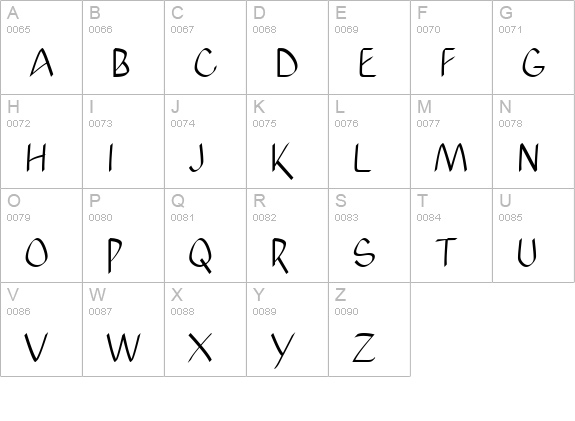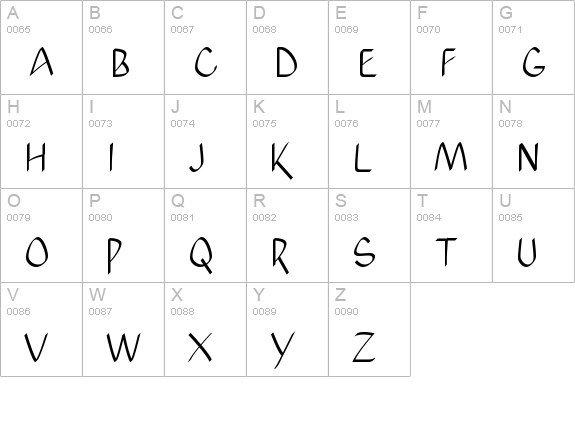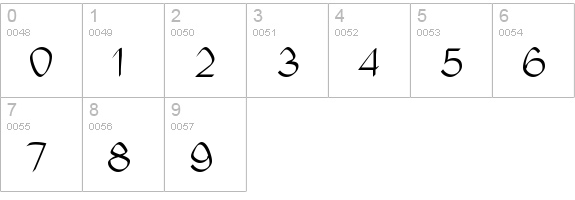
Xahosch Font Details
Xahosch font embodies elegance and sophistication with its sleek and modern design. Crafted with precision and attention to detail, this font is perfect for adding a touch of class to any project. Its clean lines and stylish curves make it versatile for a wide range of design applications, from branding to editorial design. What sets Xahosch font apart is not only its aesthetic appeal but also its accessibility. This exquisite font is available for free download at FontsMarket.com, allowing designers and enthusiasts alike to easily access and use it in their projects. Whether you're creating a sleek logo or designing a chic invitation, Xahosch font will elevate your work with its timeless charm and refined style. Download this stunning font today and watch your designs come to life with sophistication and flair.